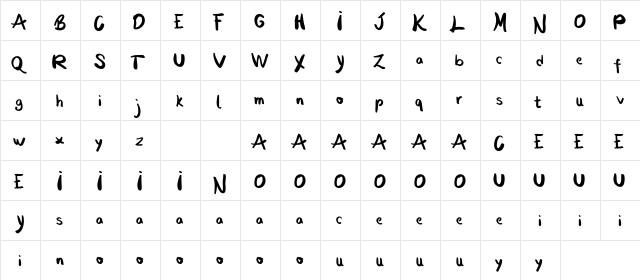
Moontany Personal Regular
| Foundry | Masdika Studio |
| Designer | Septiandika Pratama |
Design Context for Moontany Personal Typeface
Moontany Personal is a composed and adaptable typeface that performs quietly and consistently across a wide range of design contexts.